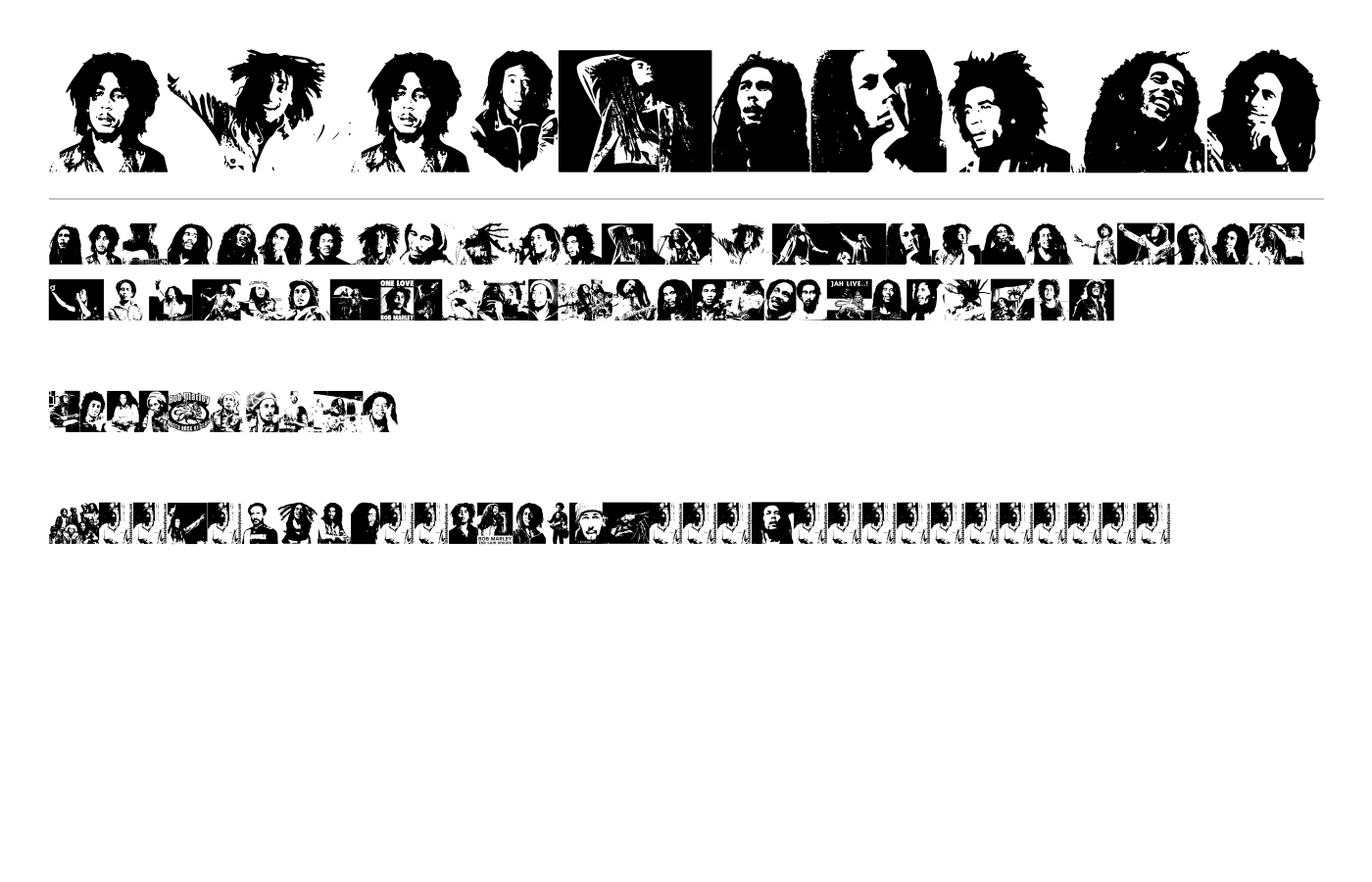
The BOB NEVER DIES! font is a highly unique, image-based typeface featuring various stencil-like portraits of Bob Marley, rather than traditional letterforms. This visually striking font carries a strong cultural and artistic vibe, perfect for bold, creative projects related to music, reggae culture, or vintage-inspired themes, where an eye-catching, personality-filled aesthetic is desired. It works best in logos, posters, and album covers where the iconic imagery and raw style can make a meaningful statement.
BOB NEVER DIES! Font
About BOB NEVER DIES! Font